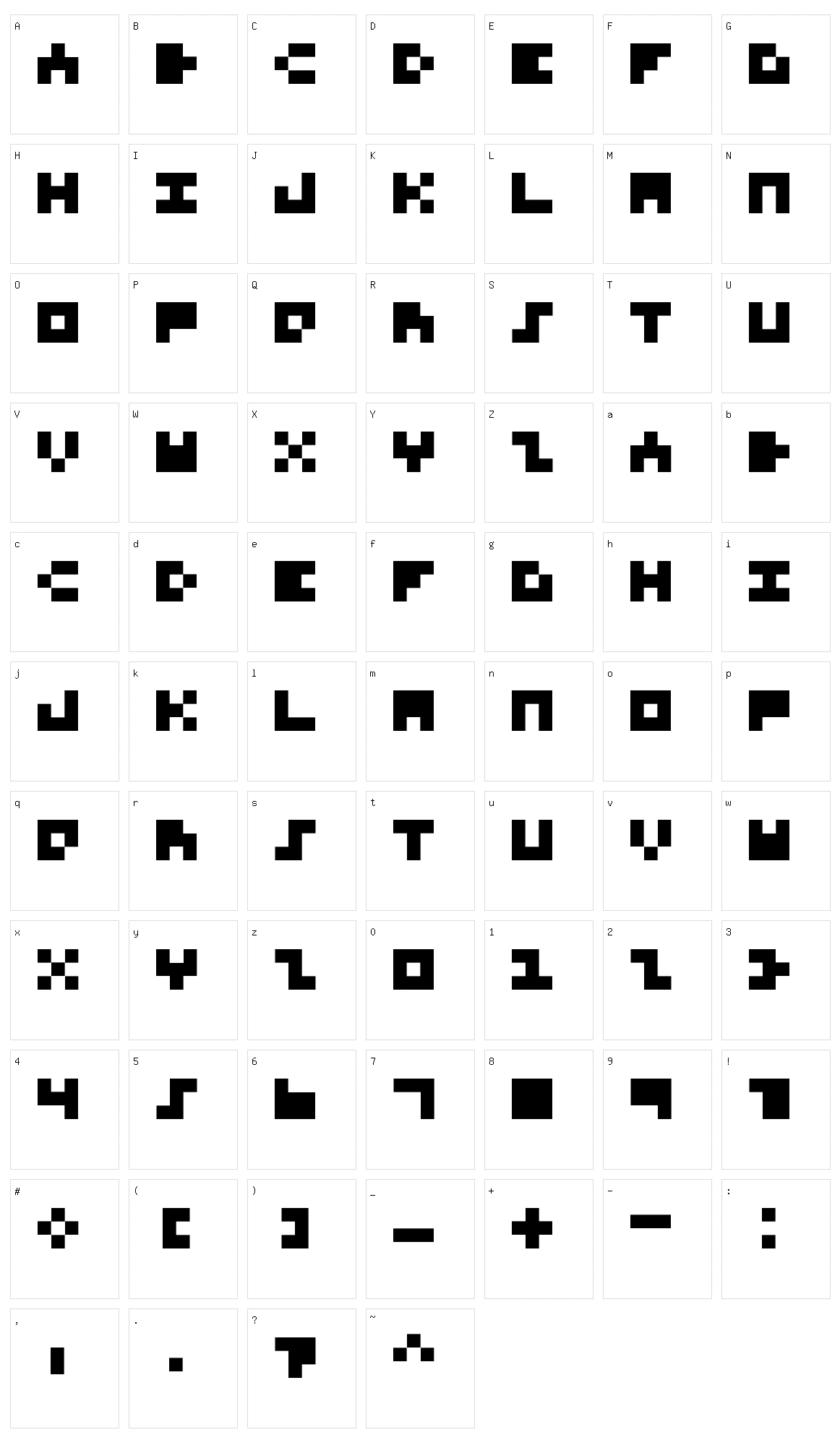
The free font Pixel rocks is carefully designed by Geronimo Font Studios, showcasing a thoughtful balance of creativity and usability and falls under the Square font style. When you download the ZIP file, it contains only 4.04 KB of font files, making it lightweight and quick to download. Please review the license details below to understand permitted usage and distribution rights. If license information is not available, we recommend using this font for personal projects only or contacting the author directly for commercial usage permissions.